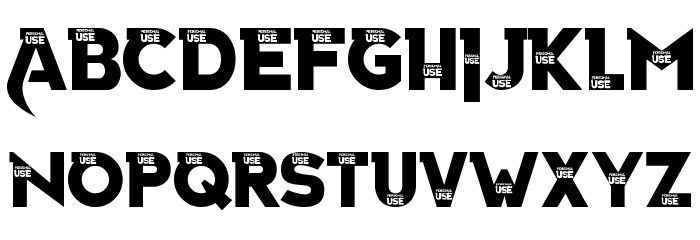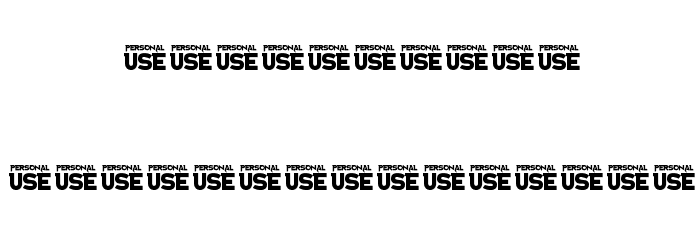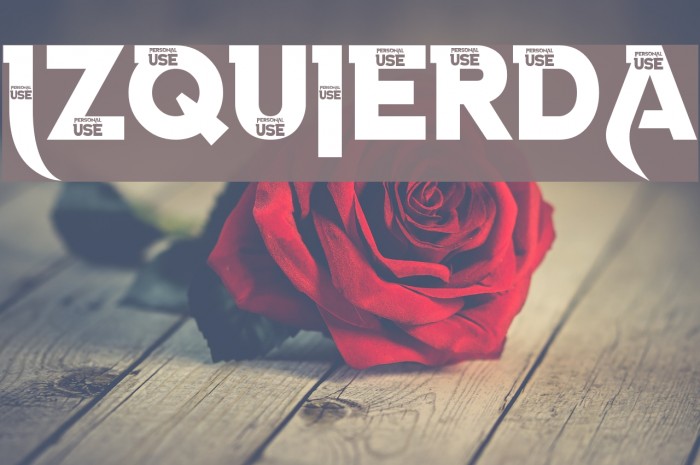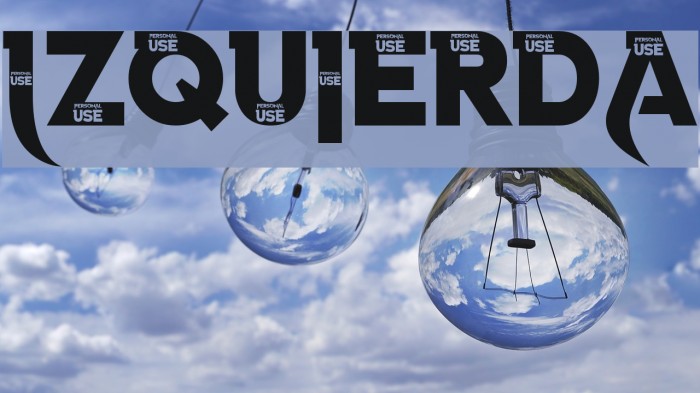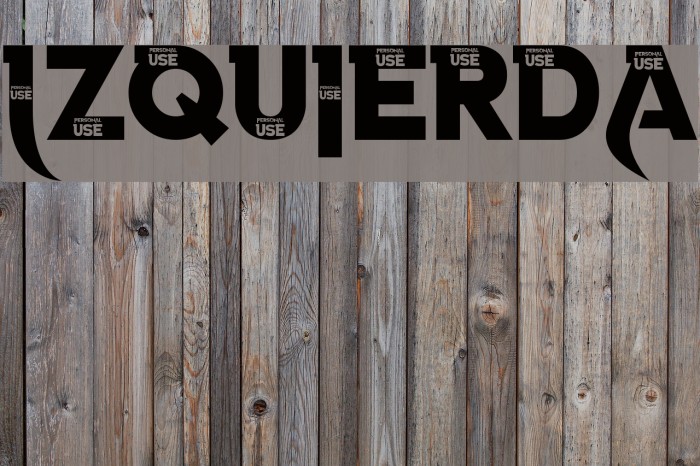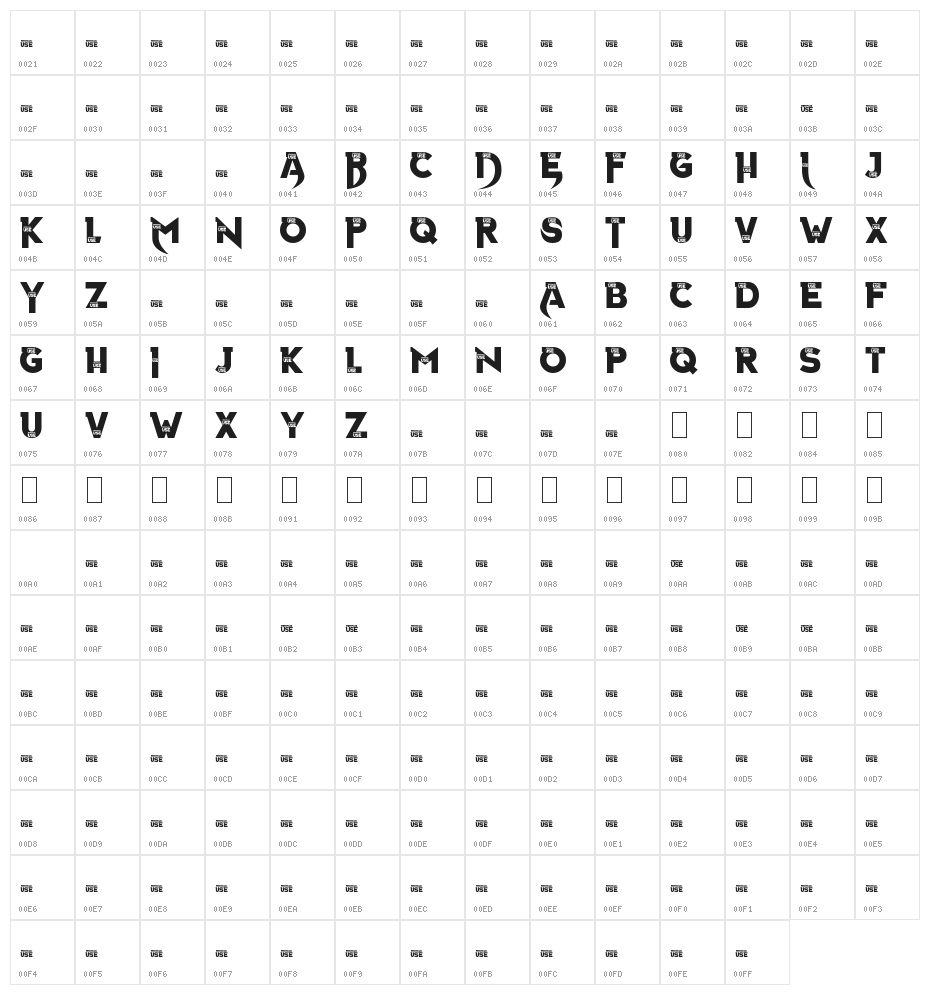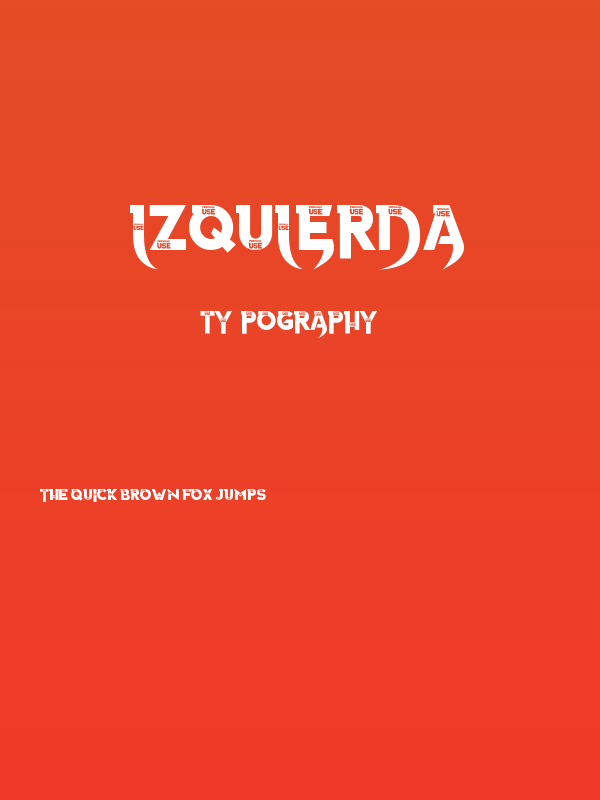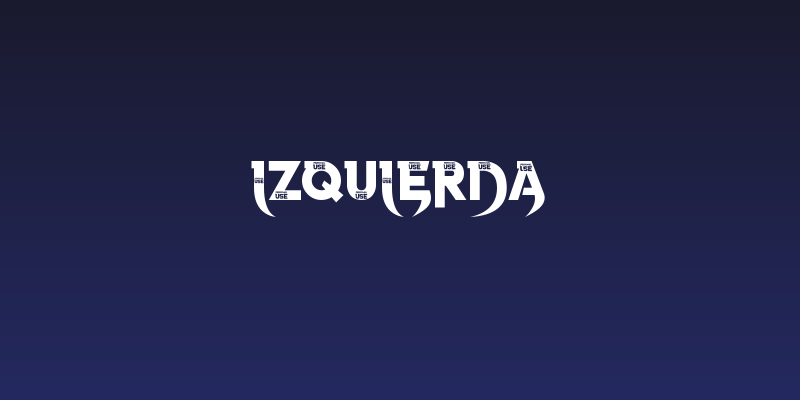
Izquierda Font
This font features a bold and striking design with sharp, angular edges and a modern aesthetic. The uppercase letters are characterized by their geometric shapes and strong presence, making them ideal for attention-grabbing headlines. The font exhibits a unique style with its thick strokes and minimal contrast, ensuring readability while maintaining a distinctive appearance. The characters are tightly spaced, enhancing the compact and impactful look of the text. This font is particularly well-suited for projects that require a bold statement, such as posters, logos, and branding materials.
A bold, angular font with a modern and striking design.
- Font: Izquierda
- Proposed Projects: Ideal for posters, logos, branding, and any project requiring a bold statement.
- Character Spacing: Tight